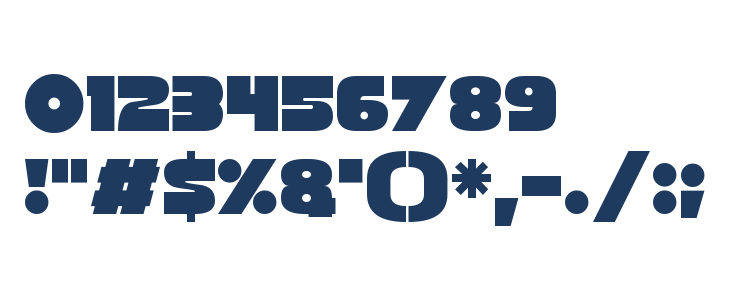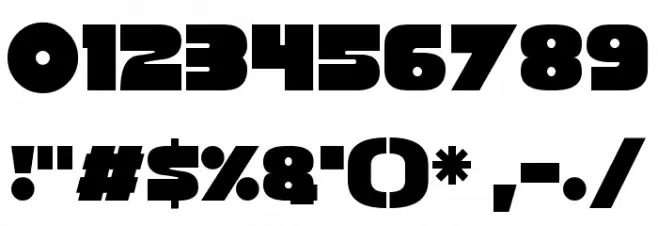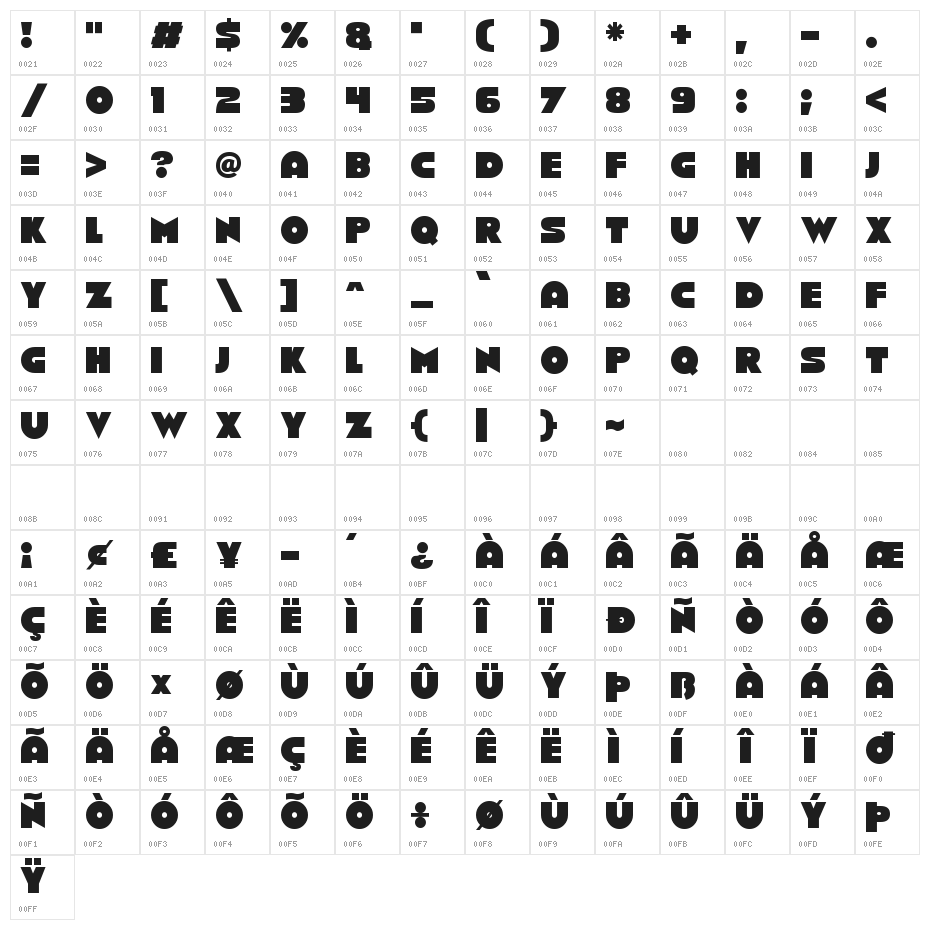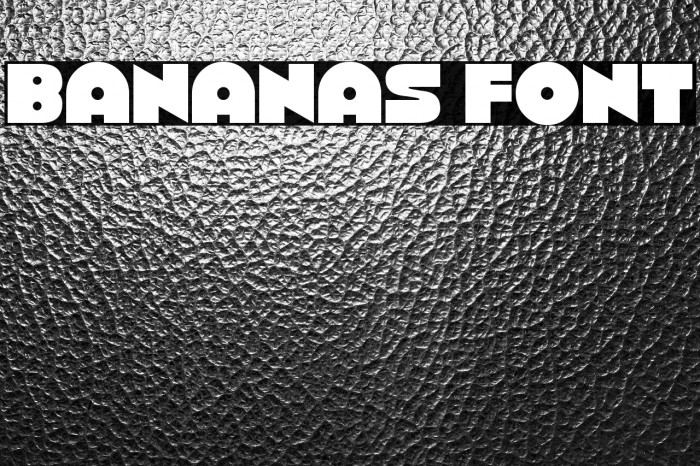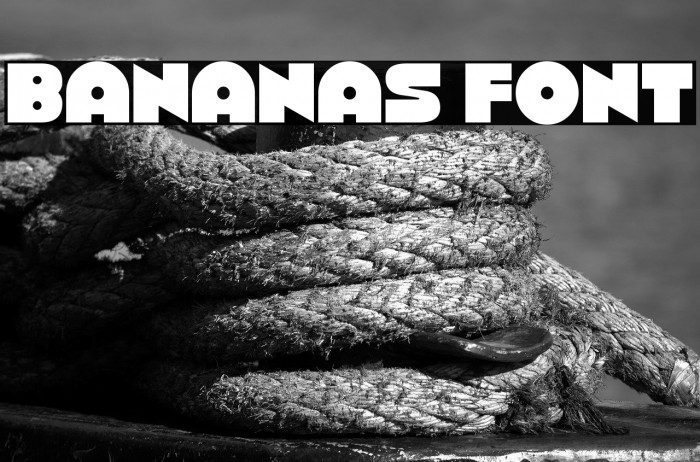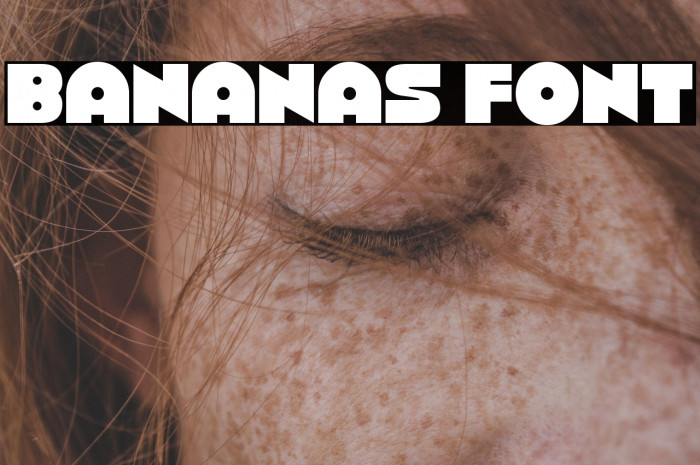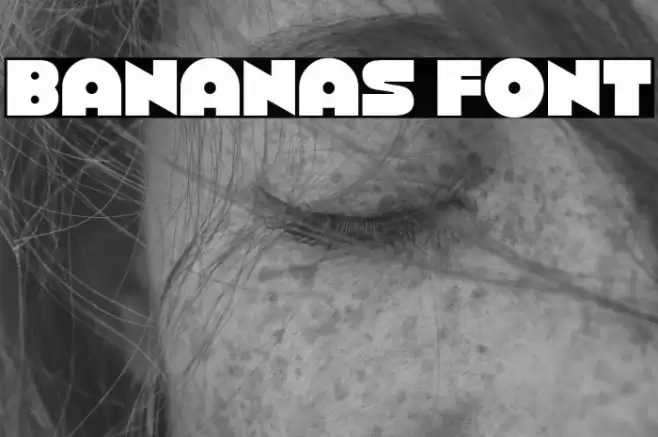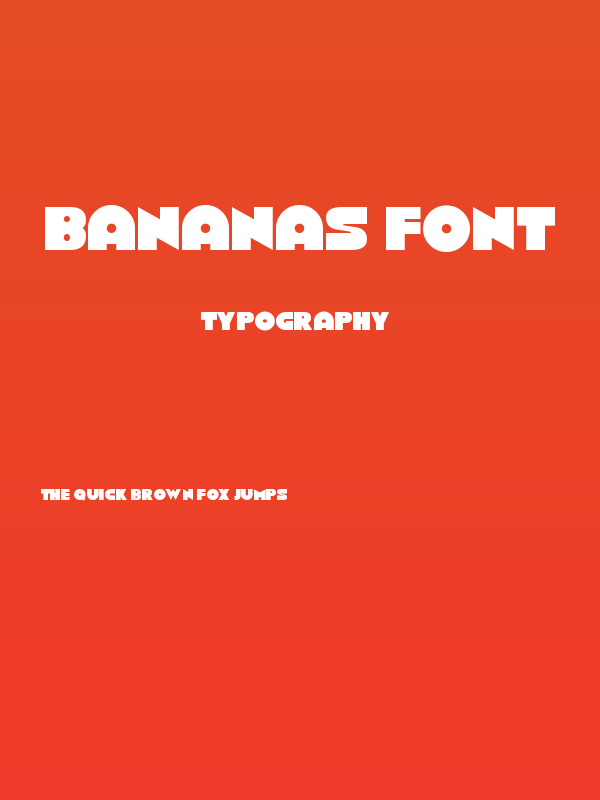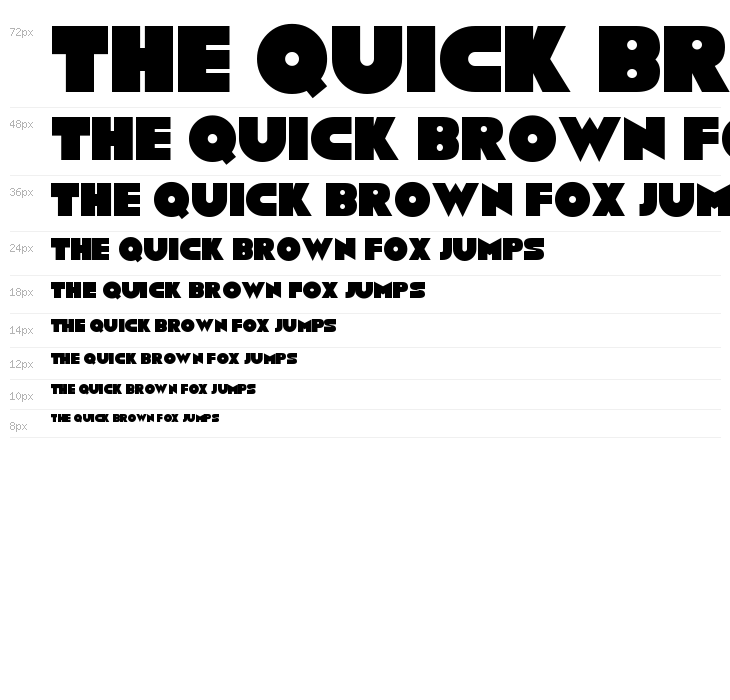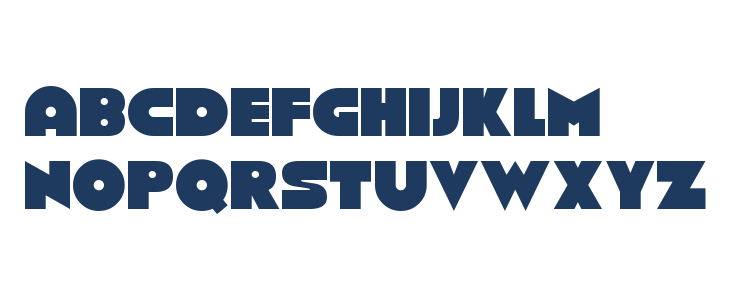
Bananas Font Font
Bananas Font Description
This font features bold, geometric shapes with a strong presence. The characters are constructed with thick, uniform strokes, creating a sense of solidity and impact. The design is highly stylized, with a modern and playful aesthetic that makes it stand out. The uppercase and lowercase letters maintain a consistent weight, contributing to a cohesive look. The numbers and special characters follow the same bold style, ensuring uniformity across all text elements. This font is ideal for projects that require a strong visual statement.
| Proposed Projects | Ideal for branding, posters, headlines, and any design needing a strong visual impact. |